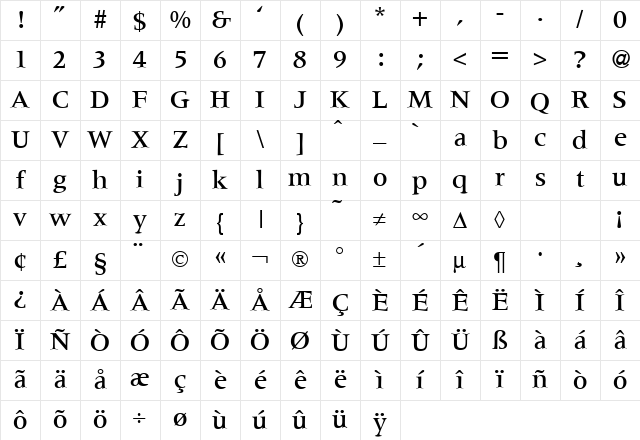
Complete MetaphorMedium Regular glyph index. Displaying only characters natively supported by MetaphorMedium Regular font.
MetaphorMedium is a composed and adaptable typeface that performs quietly and consistently across a wide range of design contexts.